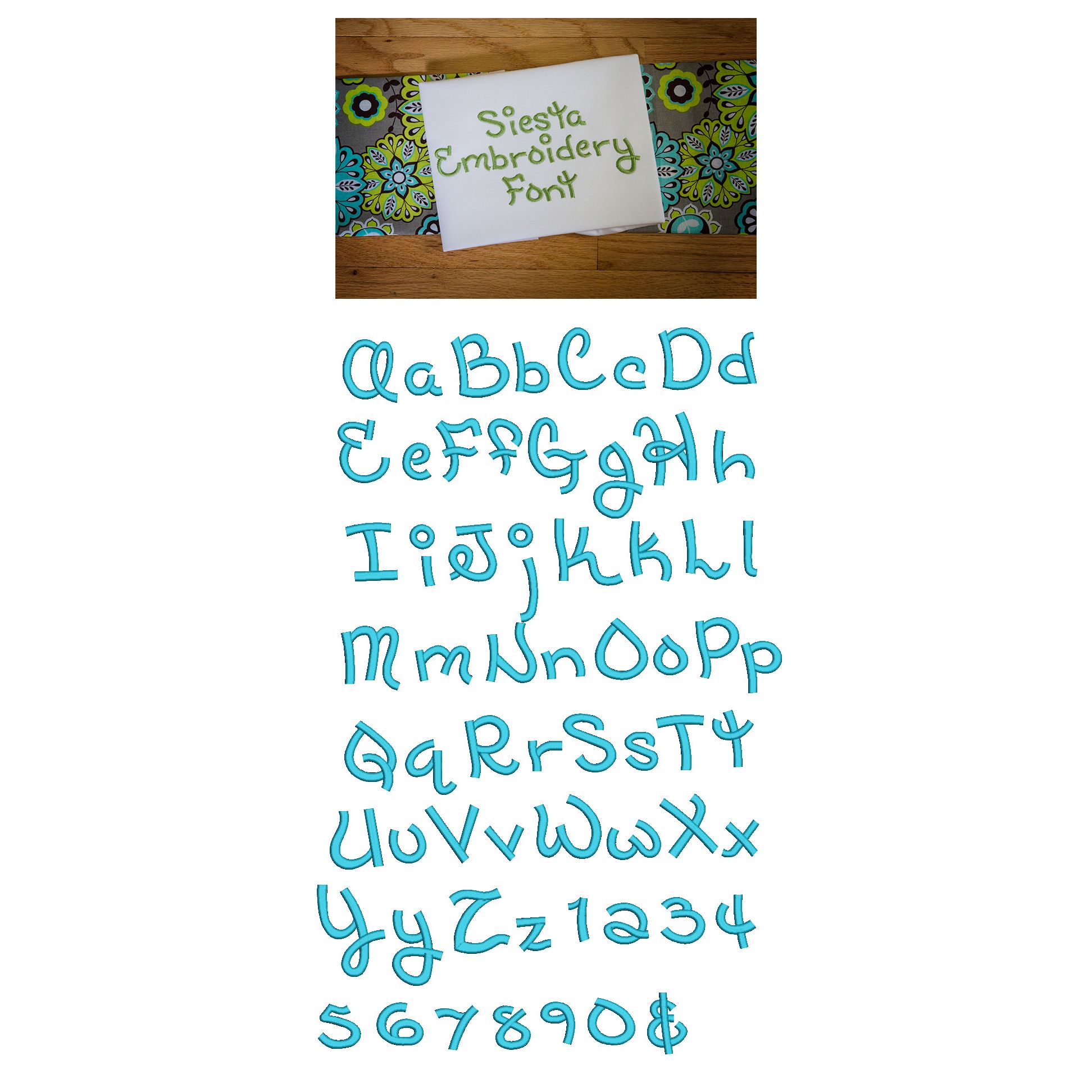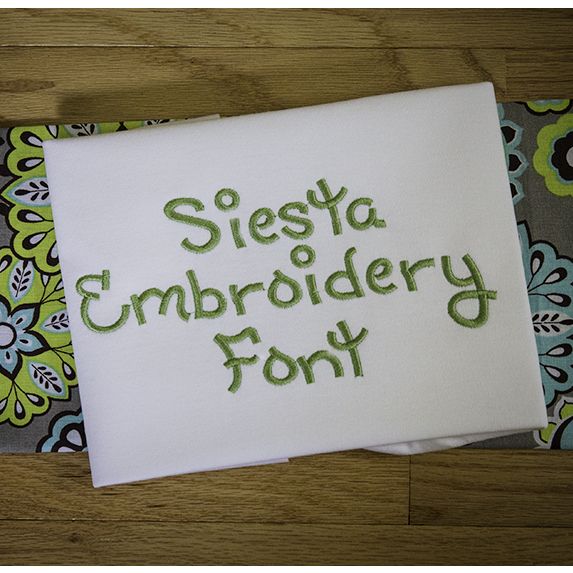
Siesta Satin Stitch Embroidery Font
Another super cute, thick, chunky and whimsical font! All of our font alphabets are 100% manually digitized to bring you maximum stitch quality.